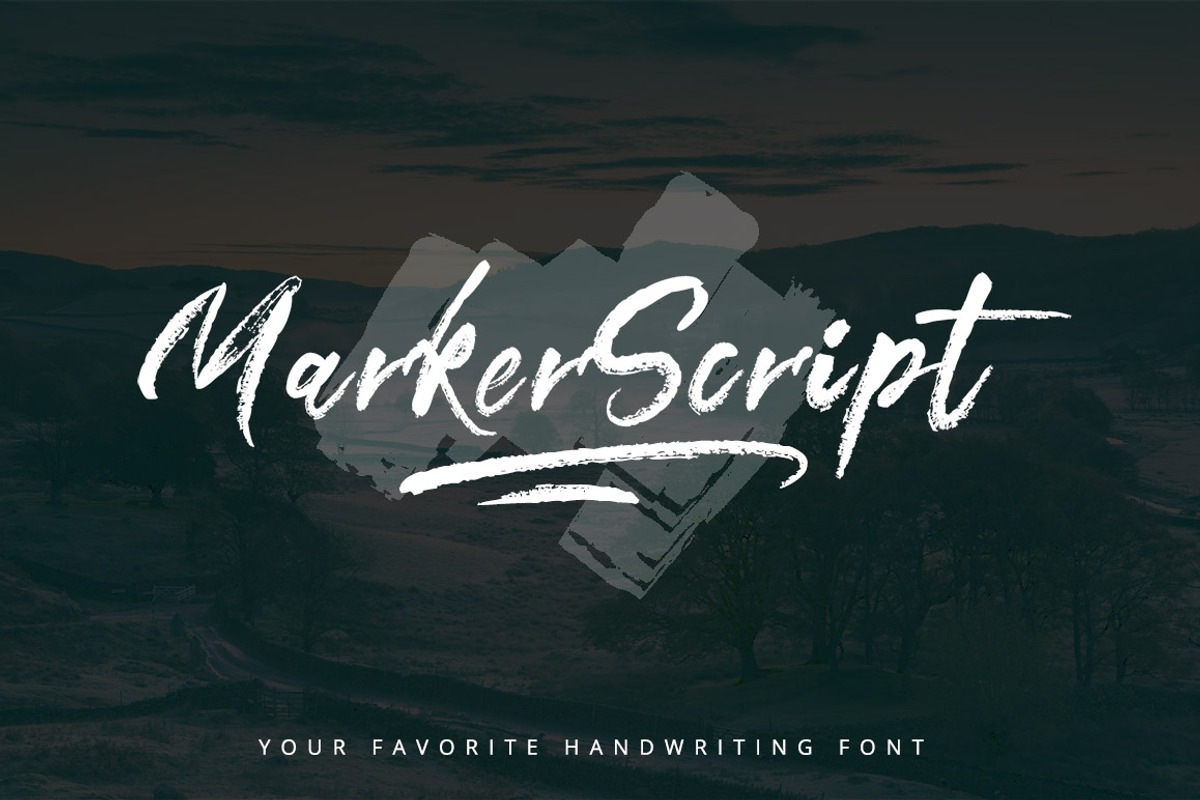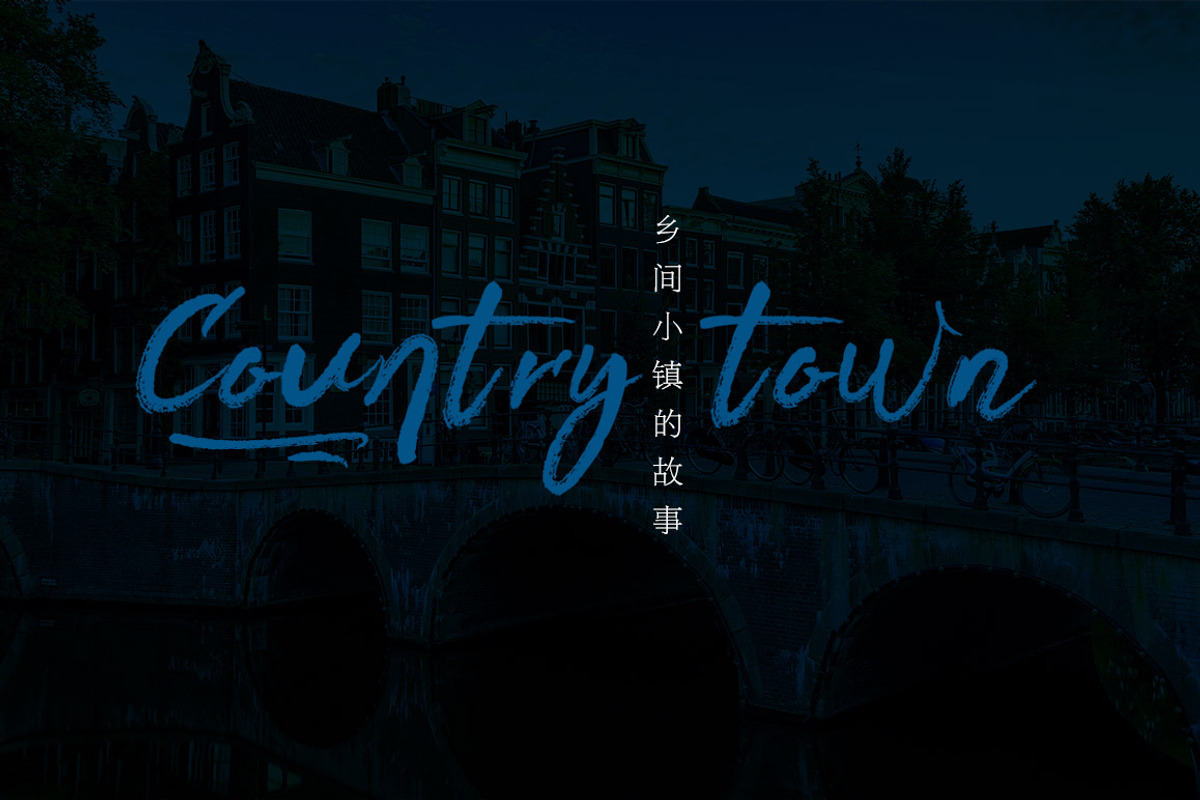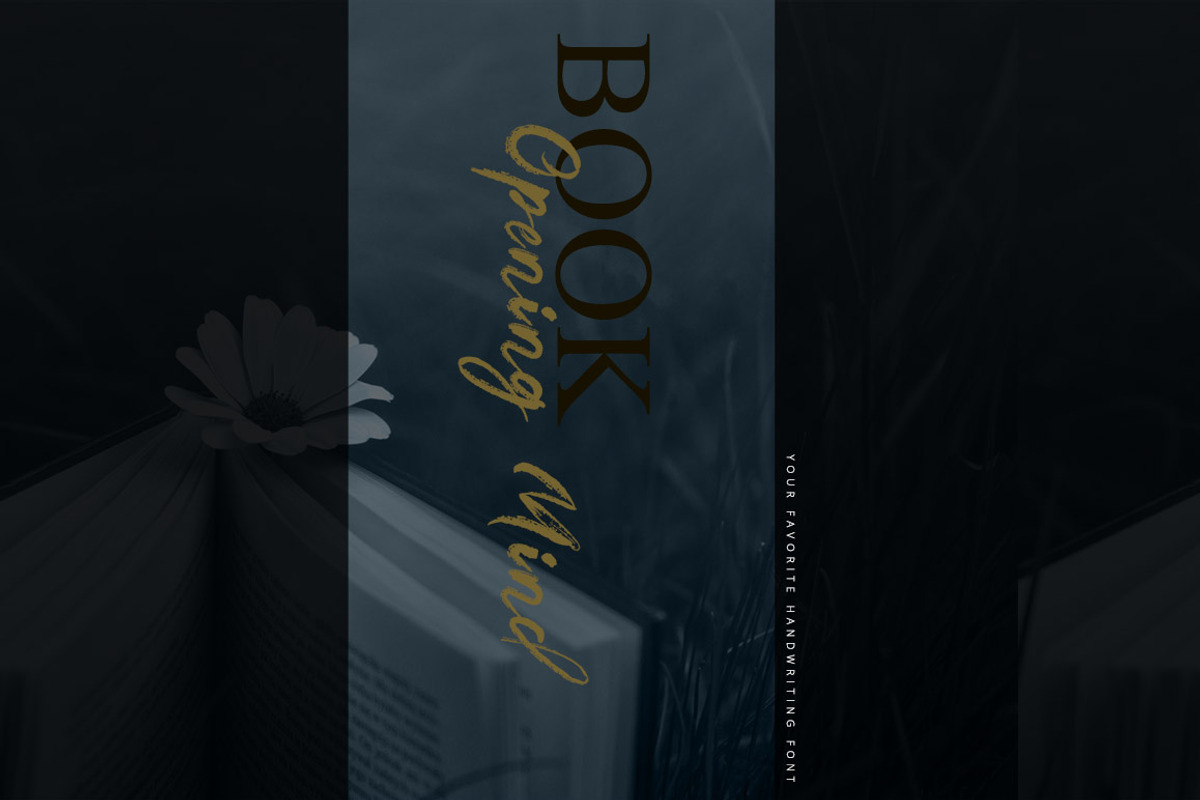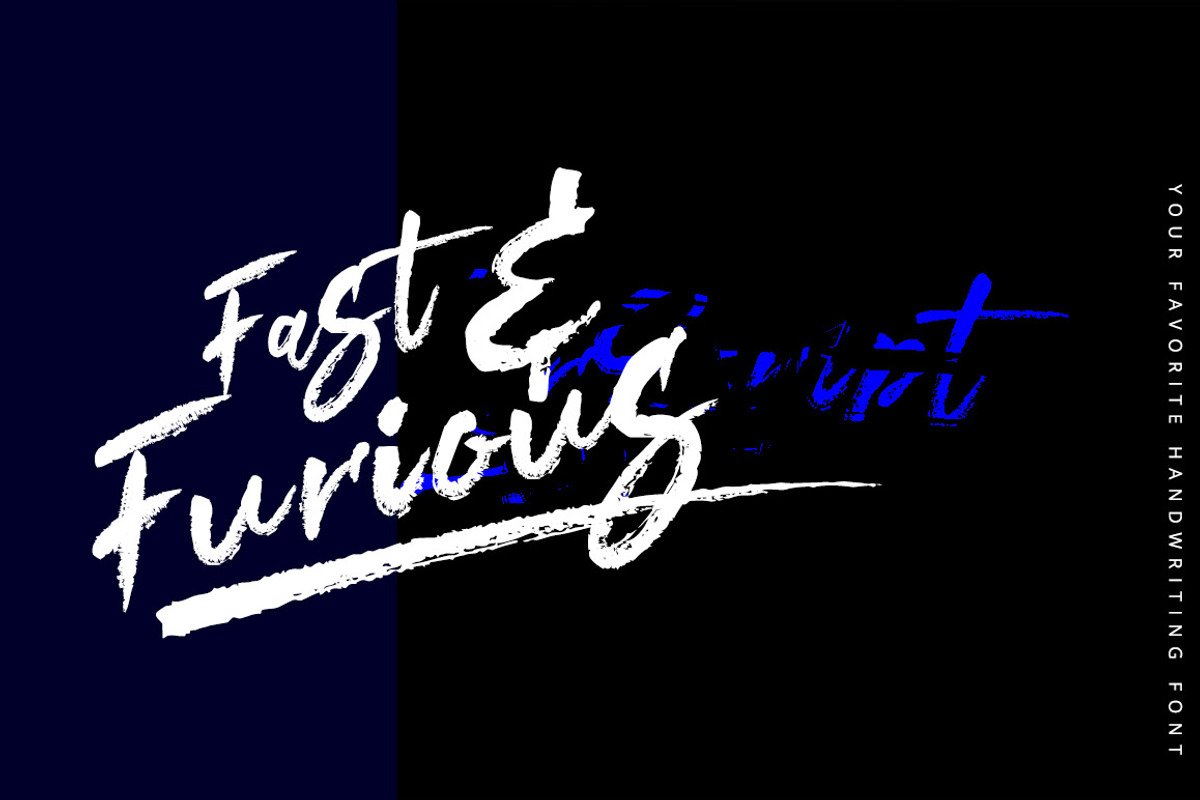
MarkerScript Font
MarkerScript is a set of handwritten style font, Its style is rude, free and prominent. Similar to the brush strokes, It can be used in advertisements, picture albums, posters, illustrations, etc.
MarkerScript Font by alphadesign fits naturally into Branding, posters, packaging, typography.